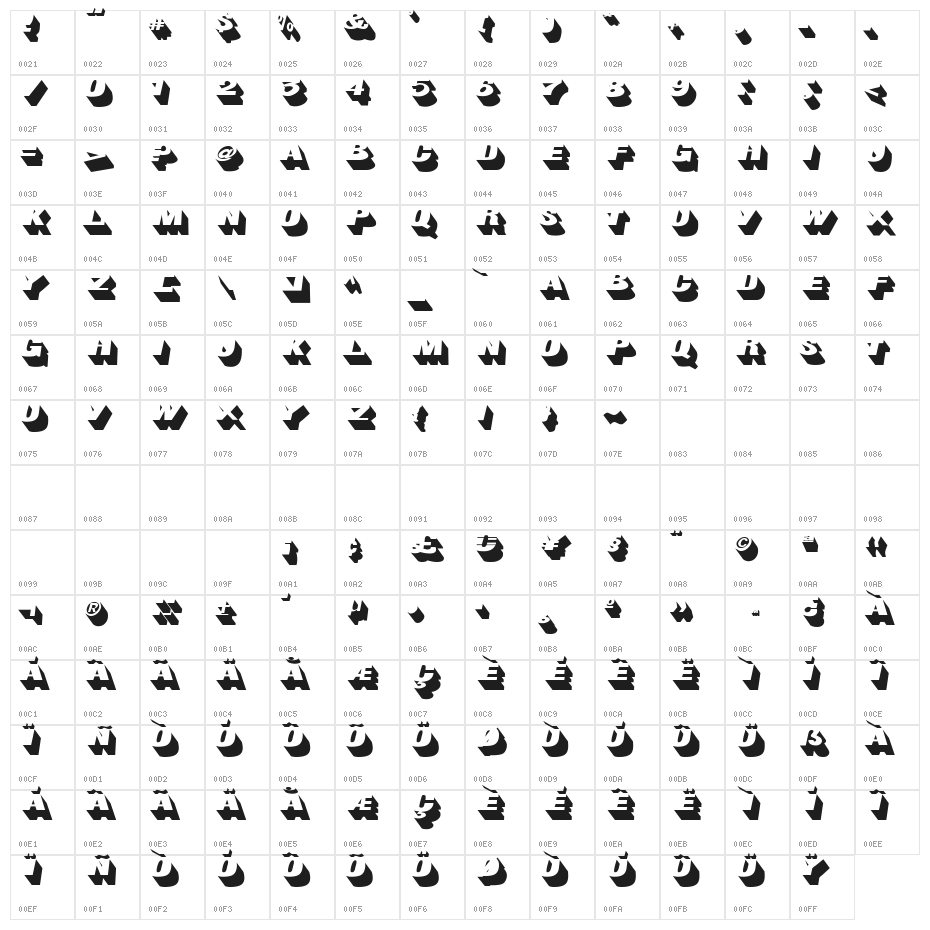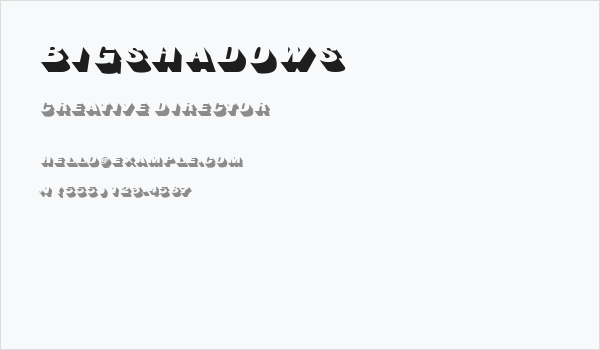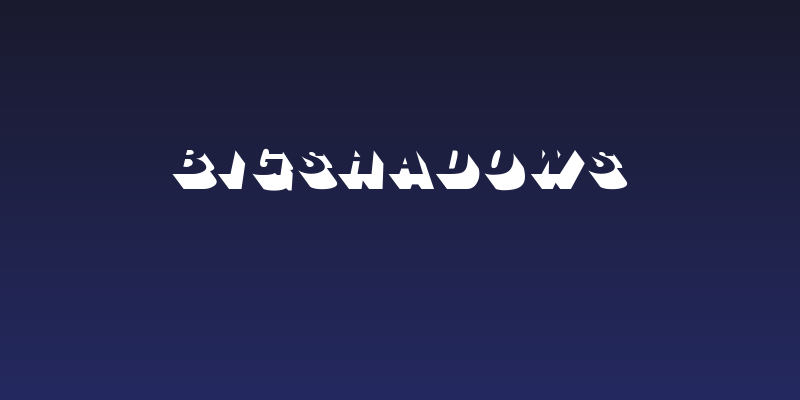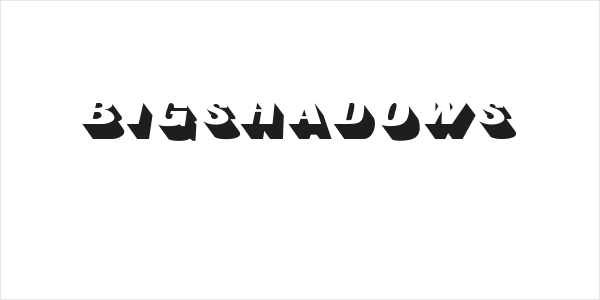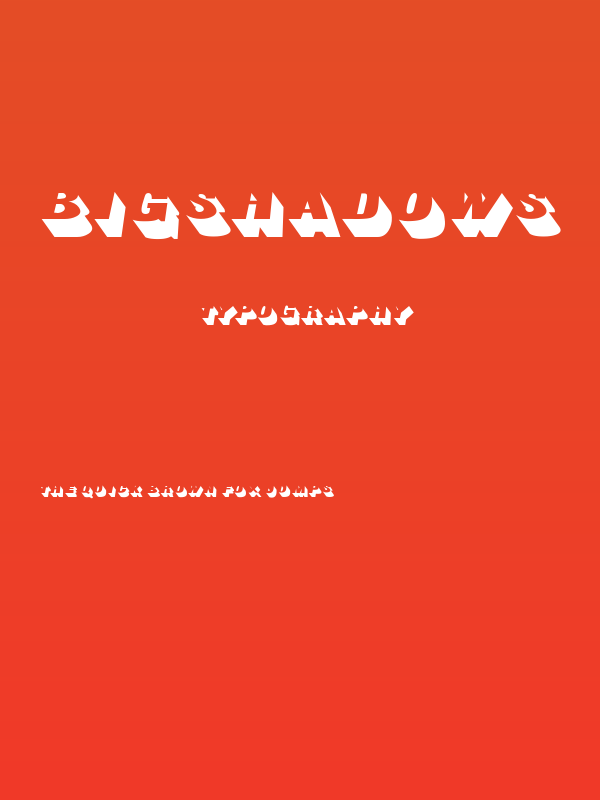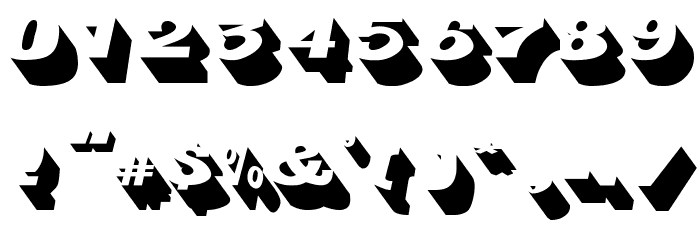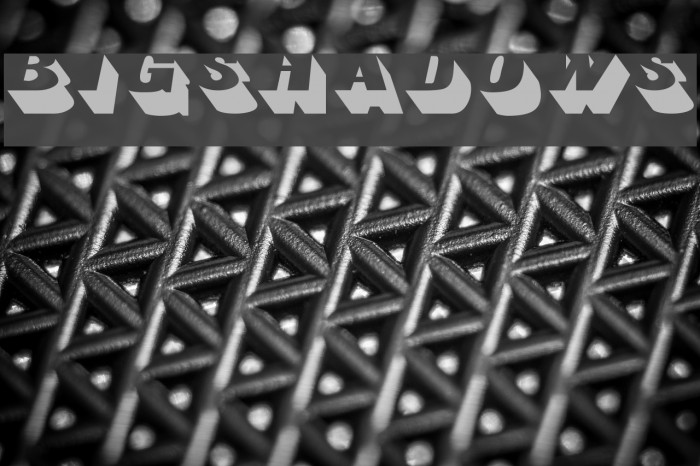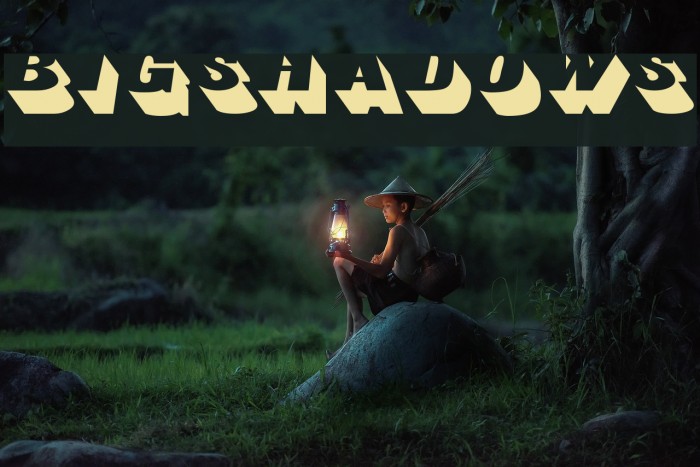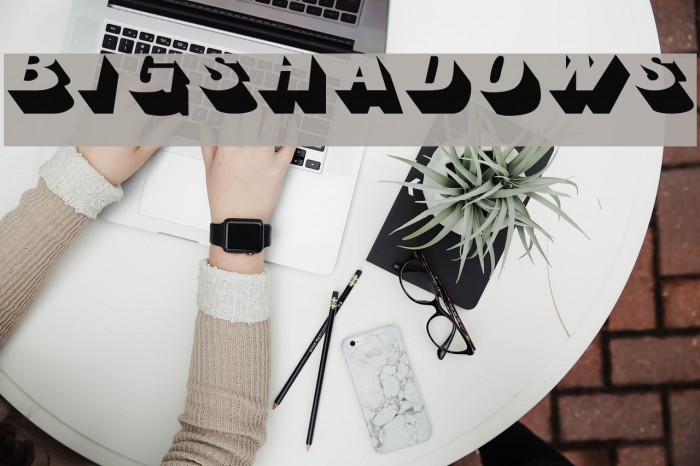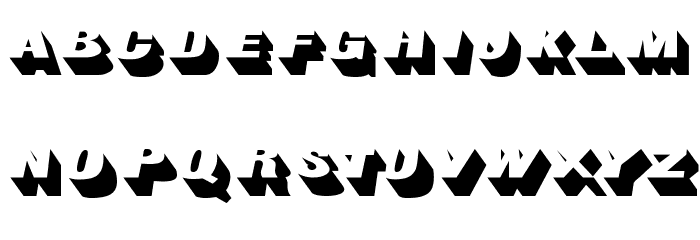
BigShadows Font
BigShadows Description
This font features a bold, three-dimensional style with pronounced shadows that give it a striking, impactful appearance. The characters are uppercase and have a blocky, geometric form, which is enhanced by the deep shadows that extend to the right and downward. This creates a sense of depth and dimension, making the font ideal for attention-grabbing designs. The numbers and special characters follow the same bold and shadowed style, ensuring consistency across all elements. The font's strong visual presence makes it suitable for projects that require a dramatic and eye-catching look.
| Proposed Projects | Ideal for posters, headlines, logos, and any design that requires a bold statement. |